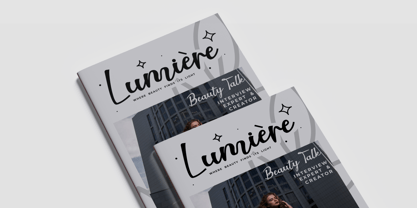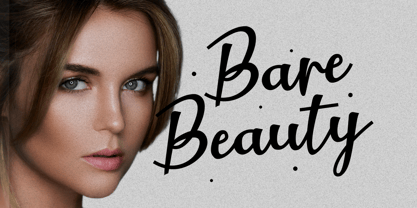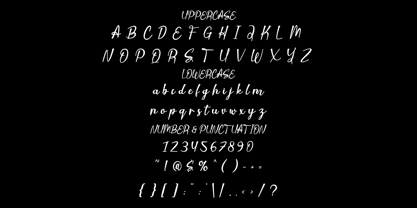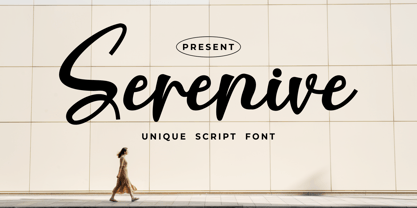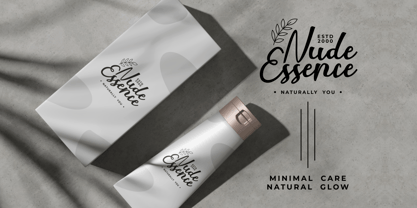
Serenive
by Shanaf
The Serenive Font Family was designed by Yesie Erma Yunita and published by Shanaf. Serenive contains 1 styles. More about this family
Serenive Script Font blends flowing handwriting with modern branding appeal. The strokes feel smooth, clean, and confident. Medium contrast lines create balance between elegance and readability. Long entry swashes and curved terminals add graceful movement. Rounded counters keep each letter warm and approachable. Tall ascenders give the font a refined vertical rhythm. Connected lowercase forms build a natural handwritten flow. Select uppercase letters stand out for logo initials and signature marks. This style feels feminine, minimal, classy, and contemporary. It suits beauty brands, skincare labels, salons, florists, jewelry stores, and candle businesses. Use it for logos, packaging, product labels, magazine covers, posters, quotes, invitations, greeting cards, and social media titles. Serenive Script Font helps create polished identities with soft personality and memorable charm.
Designed for standout headlines, this font performs well in short names and elegant phrases. Smooth curves make branding feel personal and premium without excess detail. It pairs well with clean sans serif text for modern layouts. Use it for café menus, wedding stationery, boutique shops, creative studios, and home decor brands. The script structure adds movement while staying clear at display sizes. Thin joins and fuller downstrokes create stylish contrast. Spacious forms help logos breathe and look refined. It also fits book covers, editorials, advertising, stickers, and business cards. Choose this typeface when your project needs graceful energy, clean sophistication, and handwritten warmth. It turns simple words into strong visual identity fast.
Designers: Yesie Erma Yunita
Foundry: Shanaf